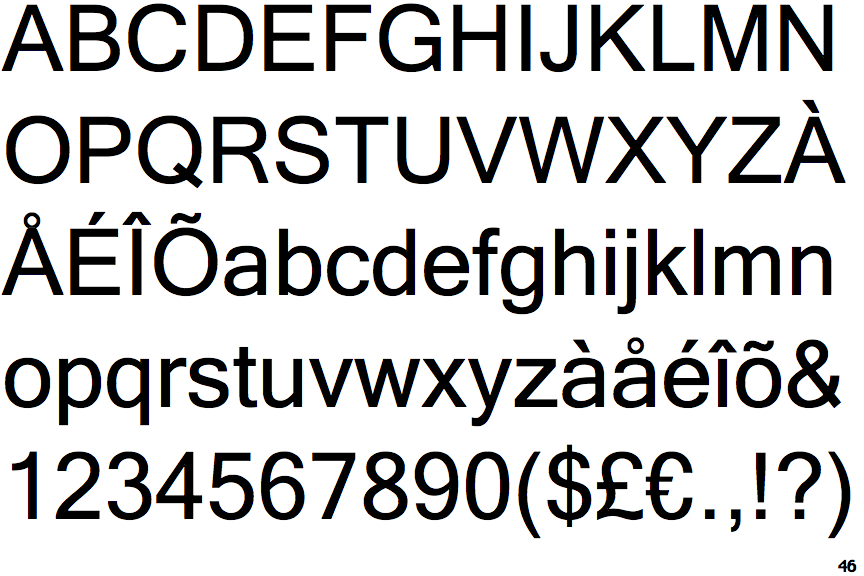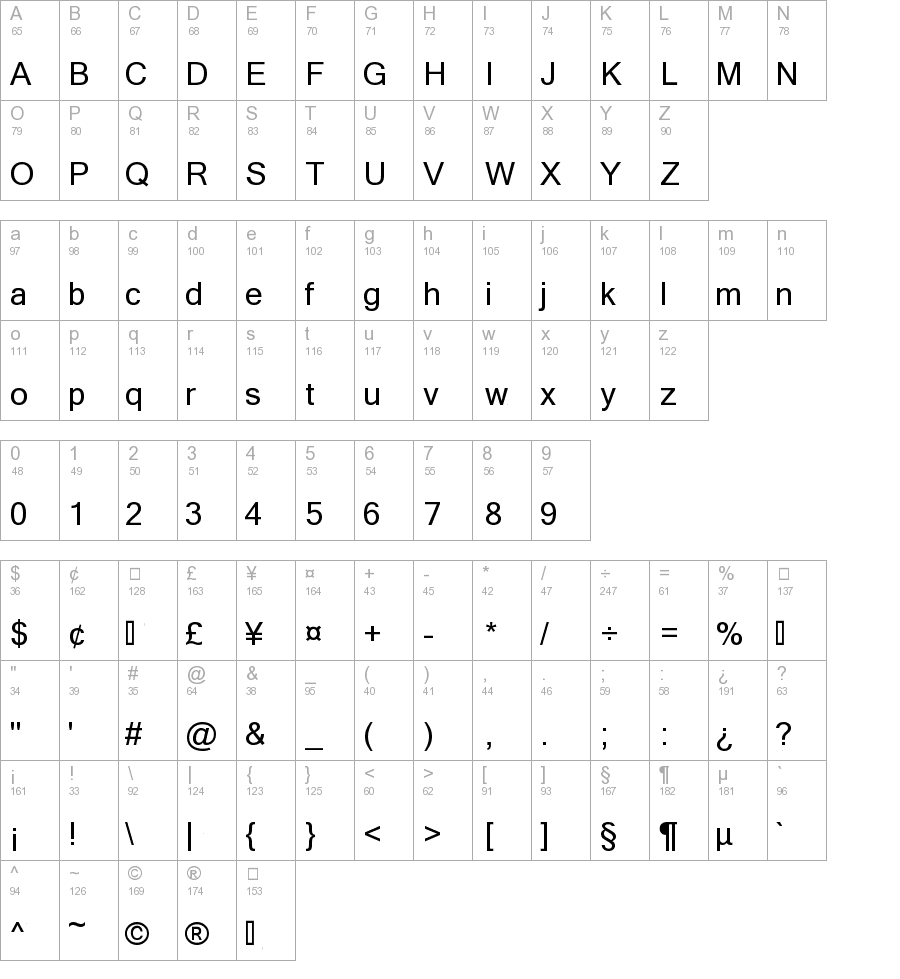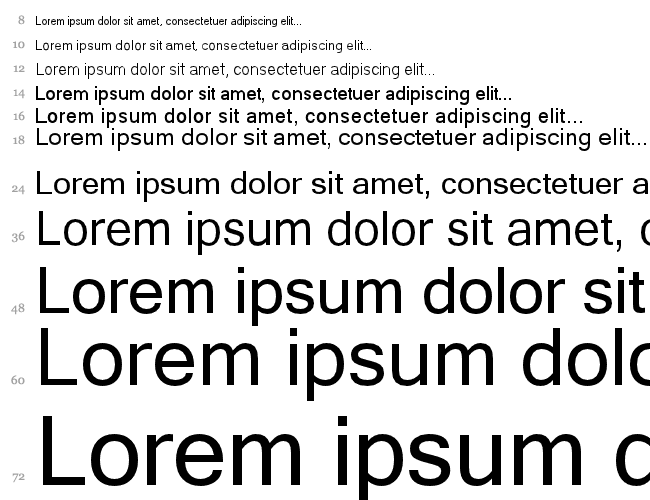
Microsoft Sans Serif Fonts
Microsoft Sans Serif Fonts - Microsoft sans serif font is a very legible user interface (ui) font. Nt 4.0, 98, 2000, me: Some fonts on the internet are sold commercially, some are. Web locate custom fonts on the web. In addition to acquiring and using fonts installed with other applications, you can download fonts from the internet.